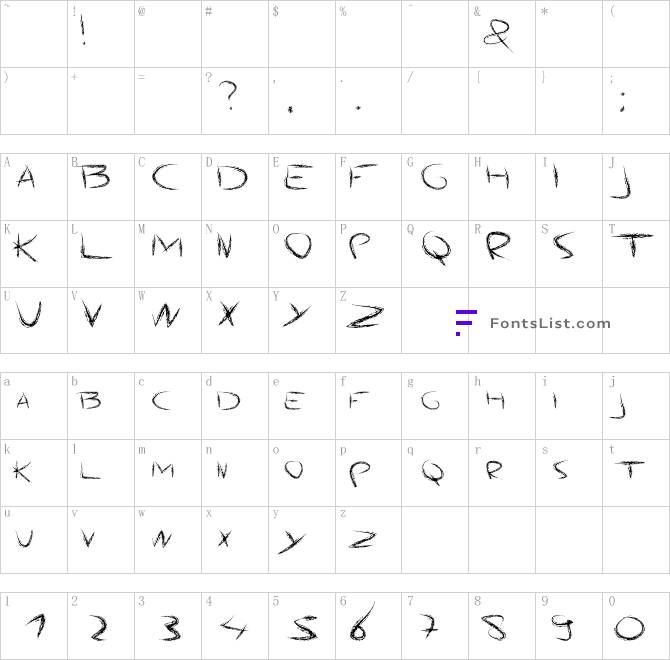
- Font Name:AngryChalk
AngryChalk.ttf is a very beautiful artistic font, AngryChalk.ttf is widely used in the design and printing of various books and pictures,AngryChalk.ttf has a strong visual impact,AngryChalk.ttf is a commonly used font in newspapers, magazines and books, and is used in posters, e-commerce Poster design, store design, logo design, font design and other fields.AngryChalk.